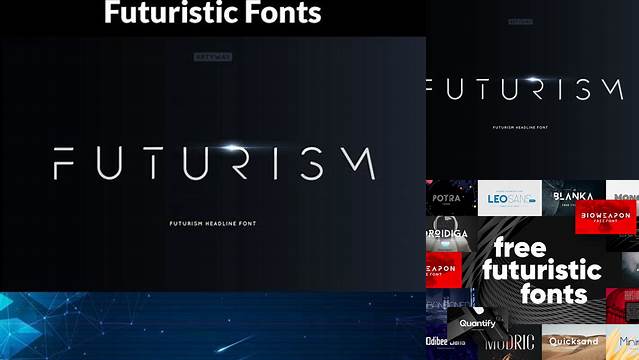
Futuristic Fonts: Free Downloads & Design Tips
Hey guys! Are you ready to dive into the world of futuristic fonts? If you're looking to add a touch of tomorrow to your designs, you've come to the right place. In this article, we're going to explore everything about futuristic fonts free download, from what makes them so special to where you can find them and how to use them effectively. Let's get started!
1. What are Futuristic Fonts?
Futuristic fonts are typefaces that evoke a sense of modernity, technology, and the future. They often feature clean lines, geometric shapes, and unique letterforms that set them apart from traditional fonts. Think sleek, streamlined, and maybe even a little bit sci-fi. These fonts are perfect for projects that aim to convey innovation, progress, and a forward-thinking mindset. When you're considering a futuristic fonts free download, keep in mind the overall feel you want to create. Is it a sleek, corporate vibe, or a more edgy, cyberpunk aesthetic? The right font can make all the difference.
2. Characteristics of Futuristic Fonts
What exactly makes a font "futuristic"? It's not just about looking modern; there are specific characteristics that define these fonts. Key features often include sharp angles, minimalist designs, and unconventional letter shapes. Many futuristic fonts also incorporate elements of technology, like circuit board patterns or digital displays. The spacing between letters might be tighter, giving a more compact and efficient feel. When you're on the hunt for a futuristic fonts free download, pay attention to these details to ensure the font aligns with your vision. Consider how the font will work in headlines versus body text, and whether it maintains readability at different sizes. The best futuristic fonts are both stylish and functional.
3. Types of Futuristic Fonts Available for Free Download
The world of futuristic fonts is vast and varied, offering something for every project. You'll find sans-serif fonts with clean, geometric lines, perfect for a modern, minimalist look. There are also display fonts with unique, eye-catching letterforms that are ideal for headlines and logos. Some futuristic fonts incorporate a touch of retro-futurism, blending vintage sci-fi aesthetics with modern design principles. And then there are the more experimental fonts that push the boundaries of typography, featuring abstract shapes and unconventional letter structures. When youβre searching for a futuristic fonts free download, explore different categories to find the perfect fit for your design. Don't be afraid to mix and match styles to create a unique visual identity.
4. Where to Find Futuristic Fonts for Free
5. Best Websites for Futuristic Font Downloads
6. How to Identify High-Quality Futuristic Fonts
Not all futuristic fonts are created equal. To ensure you're using a font that enhances your design, it's important to know how to identify high-quality options. Look for fonts with consistent letterforms, clean lines, and balanced spacing. A well-designed font will be legible at various sizes and in different contexts. Pay attention to the details, such as the kerning (the space between individual letters) and the overall weight and contrast of the font. A futuristic fonts free download might seem appealing, but it's crucial to assess its quality before incorporating it into your project. Preview the font in your design software to see how it looks in real-world applications. Choose fonts that are not only visually striking but also functional and easy to read.
7. Licensing Considerations for Free Futuristic Fonts
When you're snagging a futuristic fonts free download, it's super important to pay attention to the licensing. You don't want to accidentally step on any legal toes! Most free fonts come with a license that outlines how you can use them. Some are totally free for personal and commercial projects, which is awesome. Others might be free for personal use but need a commercial license if you're using them for business stuff. Always, always read the license before you start using a font in your designs. This little step can save you from big headaches down the road. Seriously, guys, check those licenses!
9. Using Futuristic Fonts in Graphic Design
So, you've got your stash of futuristic fonts free download and you're ready to roll β awesome! Now, how do you actually use these fonts in your graphic design projects? Well, futuristic fonts are amazing for adding a modern, techy vibe to your work. Think about using them for logos, headlines, posters, and anything that needs to grab attention. They work super well for tech startups, gaming companies, or anything related to innovation. But, a word of caution: don't overdo it. Sometimes, a little futuristic font goes a long way. Pair them with more simple, classic fonts for body text to keep things readable. Experiment and have fun, but always make sure your designs are clear and easy to understand. You got this!
30. The Ethical Use of Free Futuristic Fonts
Using a futuristic fonts free download is awesome, but it's important to do it ethically. Always check the licensing terms of the font before you use it. Make sure you're allowed to use it for your specific purpose, whether it's personal or commercial. Give credit to the font designer whenever possible. This is a simple way to show your appreciation for their work. Don't redistribute the font without permission. This is a violation of copyright. Support font designers by purchasing their fonts when you can. A futuristic fonts free download can be a great resource, but it's important to respect the rights of the creators. Using fonts ethically helps to support the design community and ensure that great fonts keep being made!